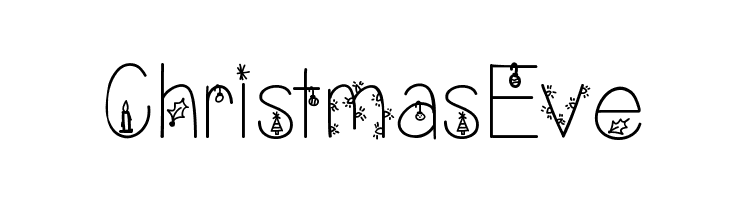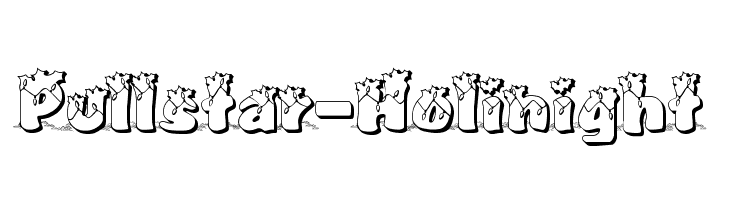
A festive, snowflake-adorned decorative font perfect for holiday themes.
A playful font with characters inside flower-shaped outlines, perfect for decorative uses.
A festive, decorative font with Christmas-themed embellishments on each character.
A festive, Christmas-themed decorative font with playful holiday motifs.
A playful, snow-capped font perfect for winter-themed designs.
A whimsical, curly font perfect for playful and fun designs.